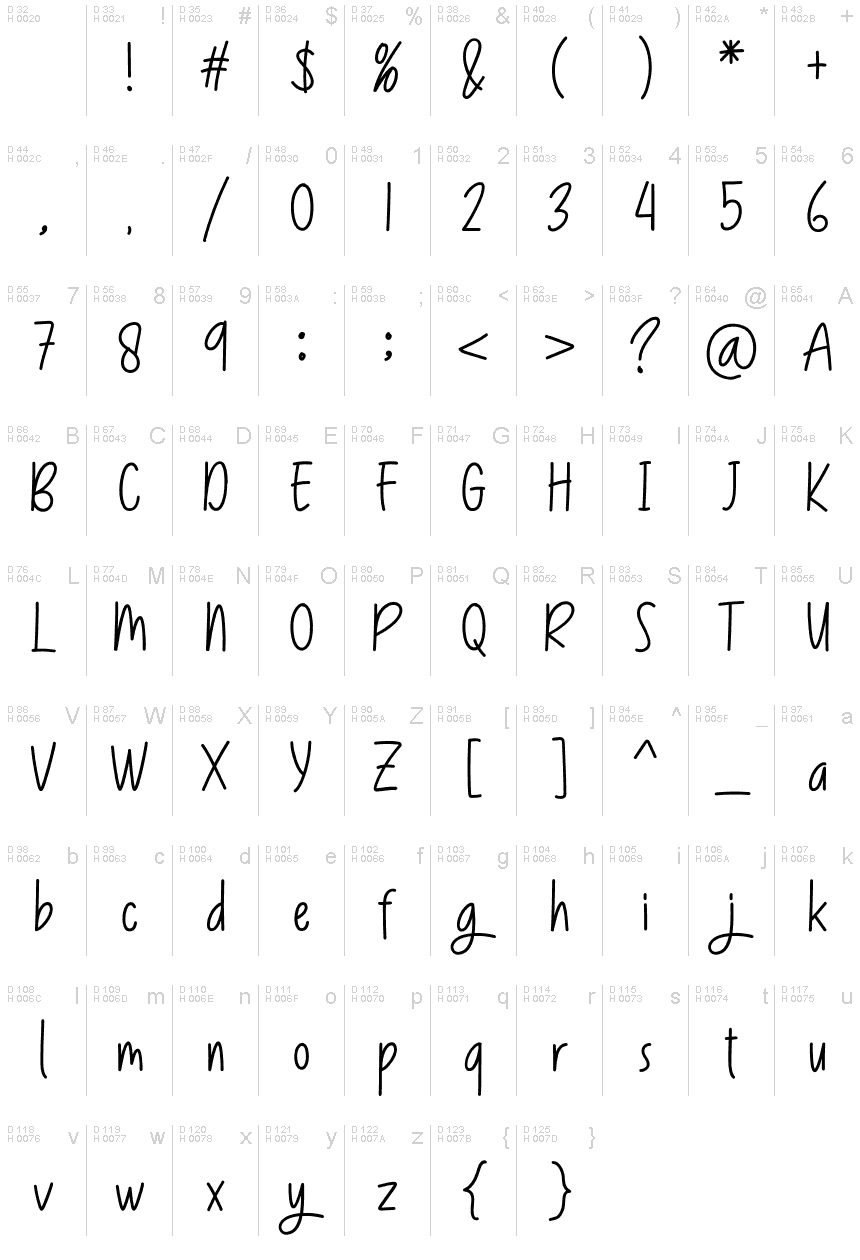
RogellikaRegular
Meet Rogellika, the handwritten font designed by scratchones. With its light weight and semi-condensed width, this font is perfect for adding a personal touch to your projects. Whether you're creating wedding invitations, social media graphics, or branding materials, Rogellika's unique style will make your designs stand out. This font's playful yet elegant look lends itself to a variety of projects, from whimsical children's books to sophisticated fashion campaigns. With Rogellika as your go-to font choice, you'll never have to sacrifice style for readability again.
the latest style letters are perfect for wall displays, wedding invitations, social media post logos, advertisements, product packaging, product designs, labels, photography, watermarks, invitations, stationery, and any project that requires taste handwriting.